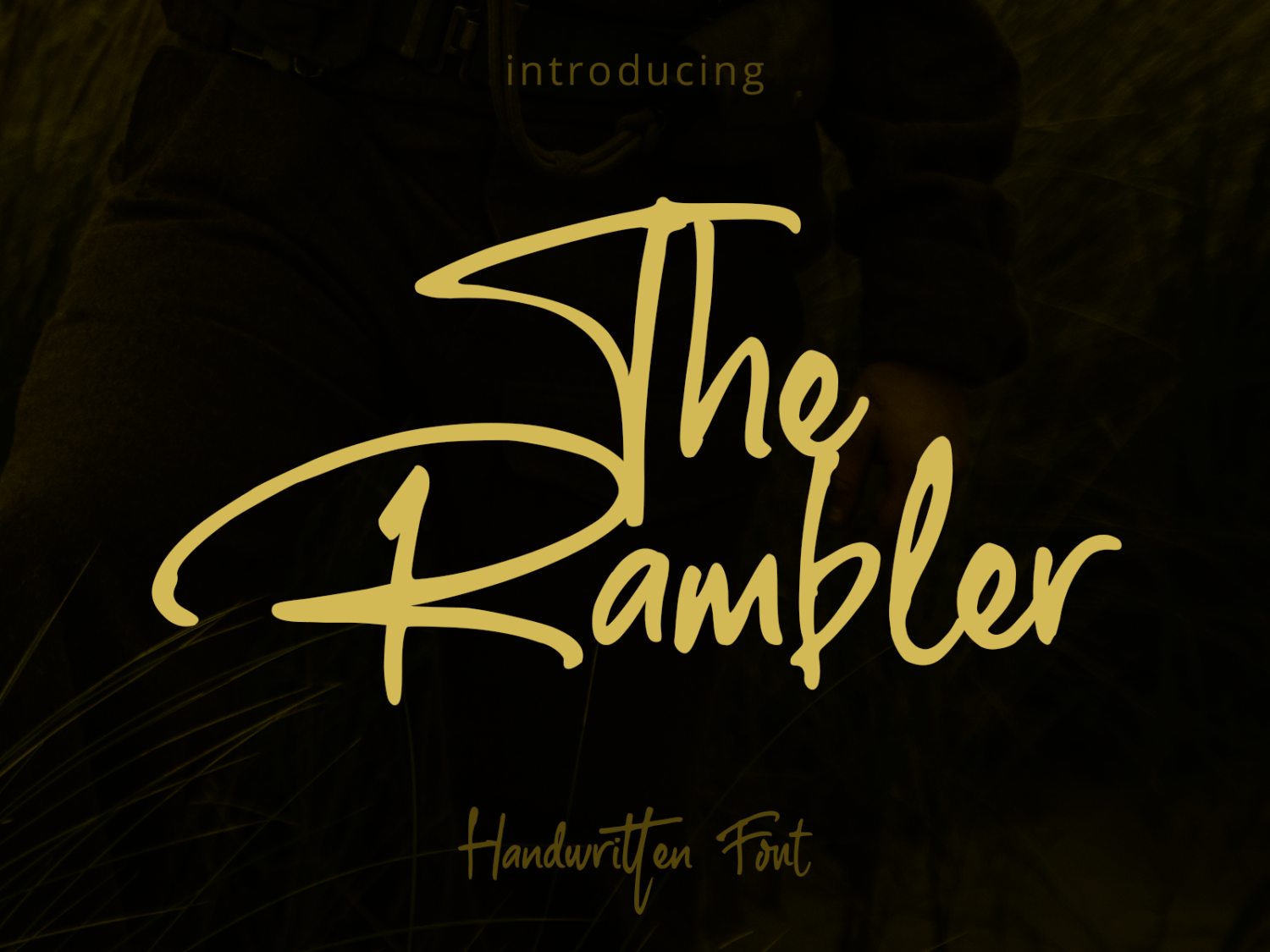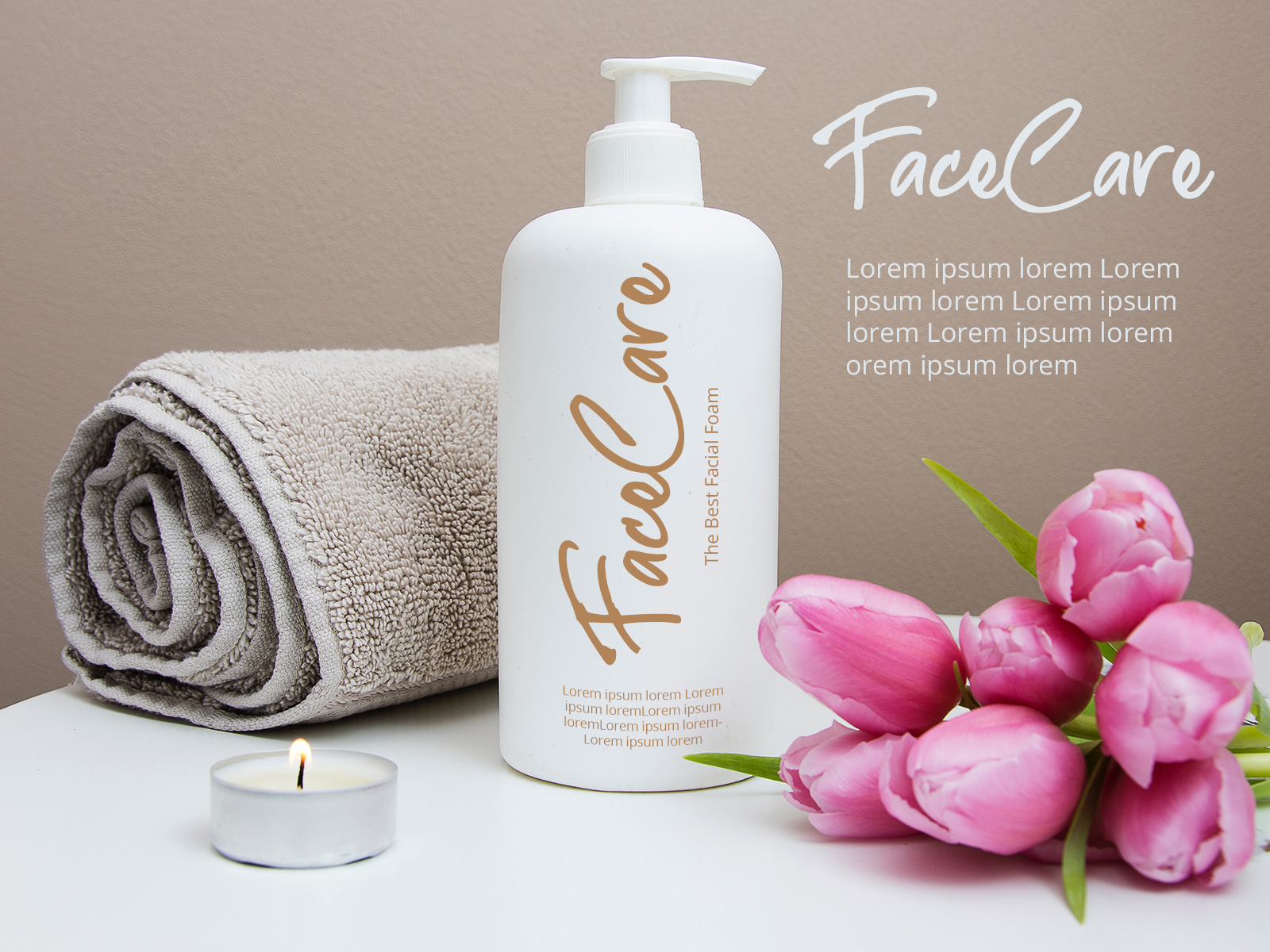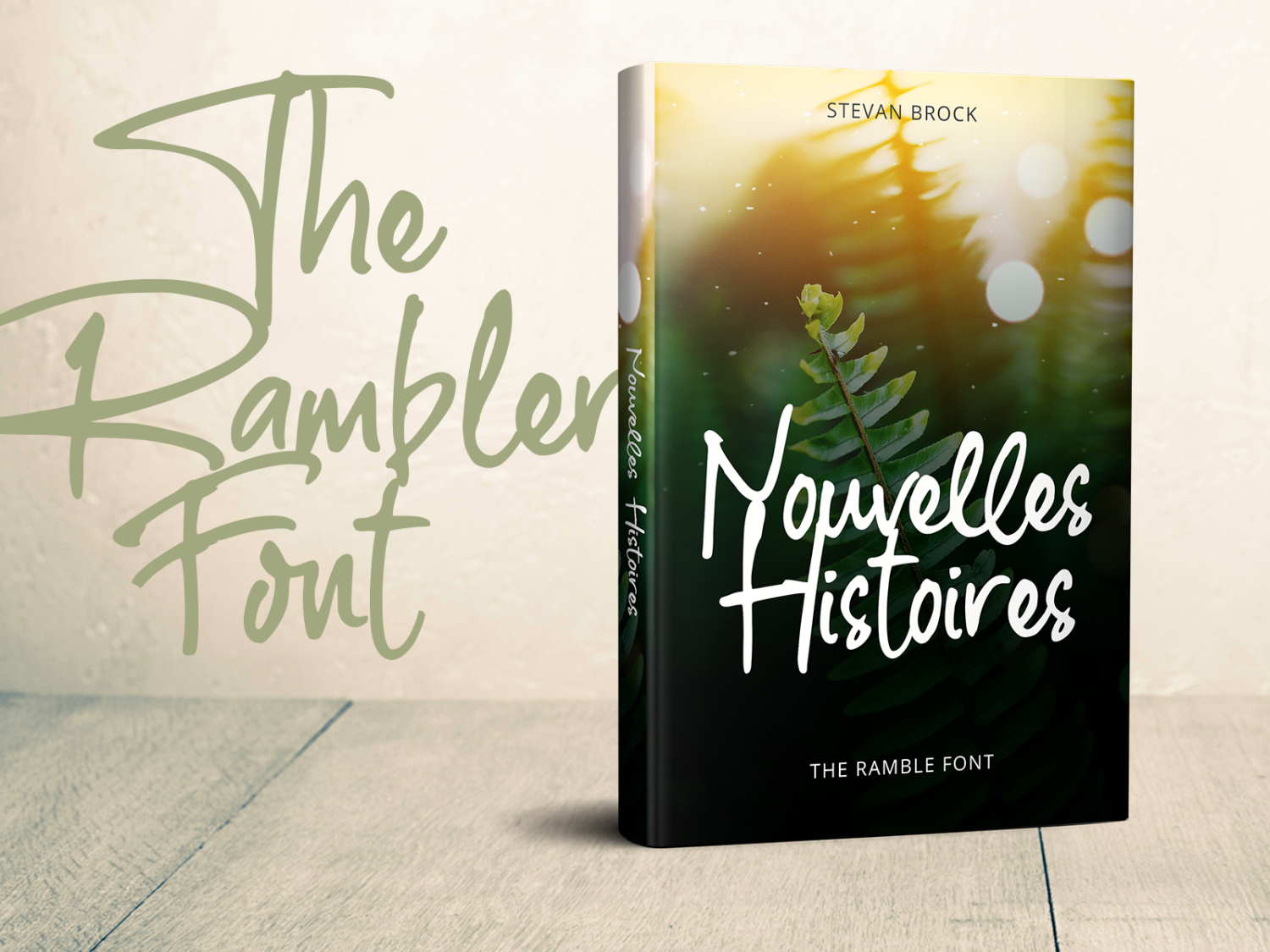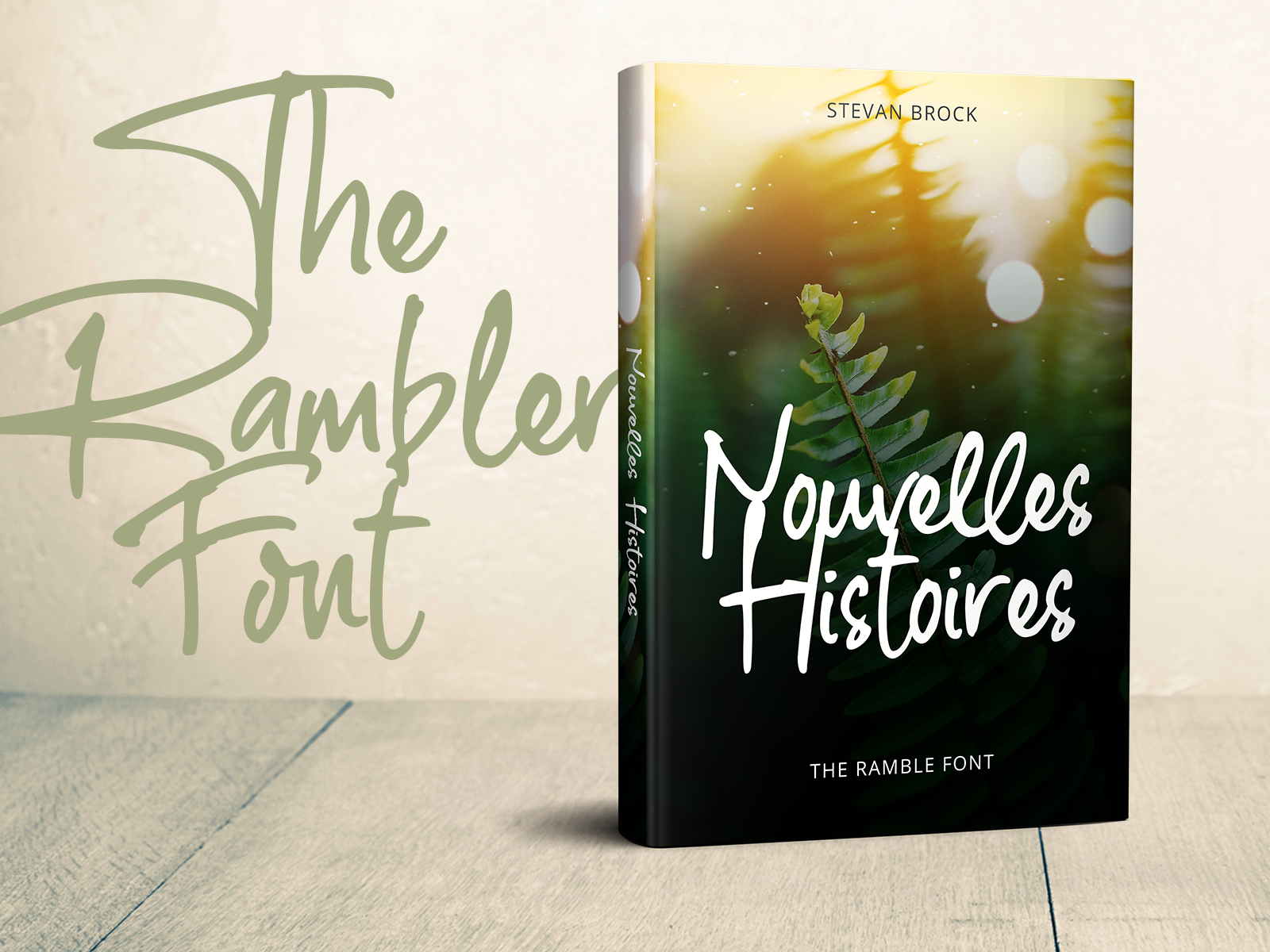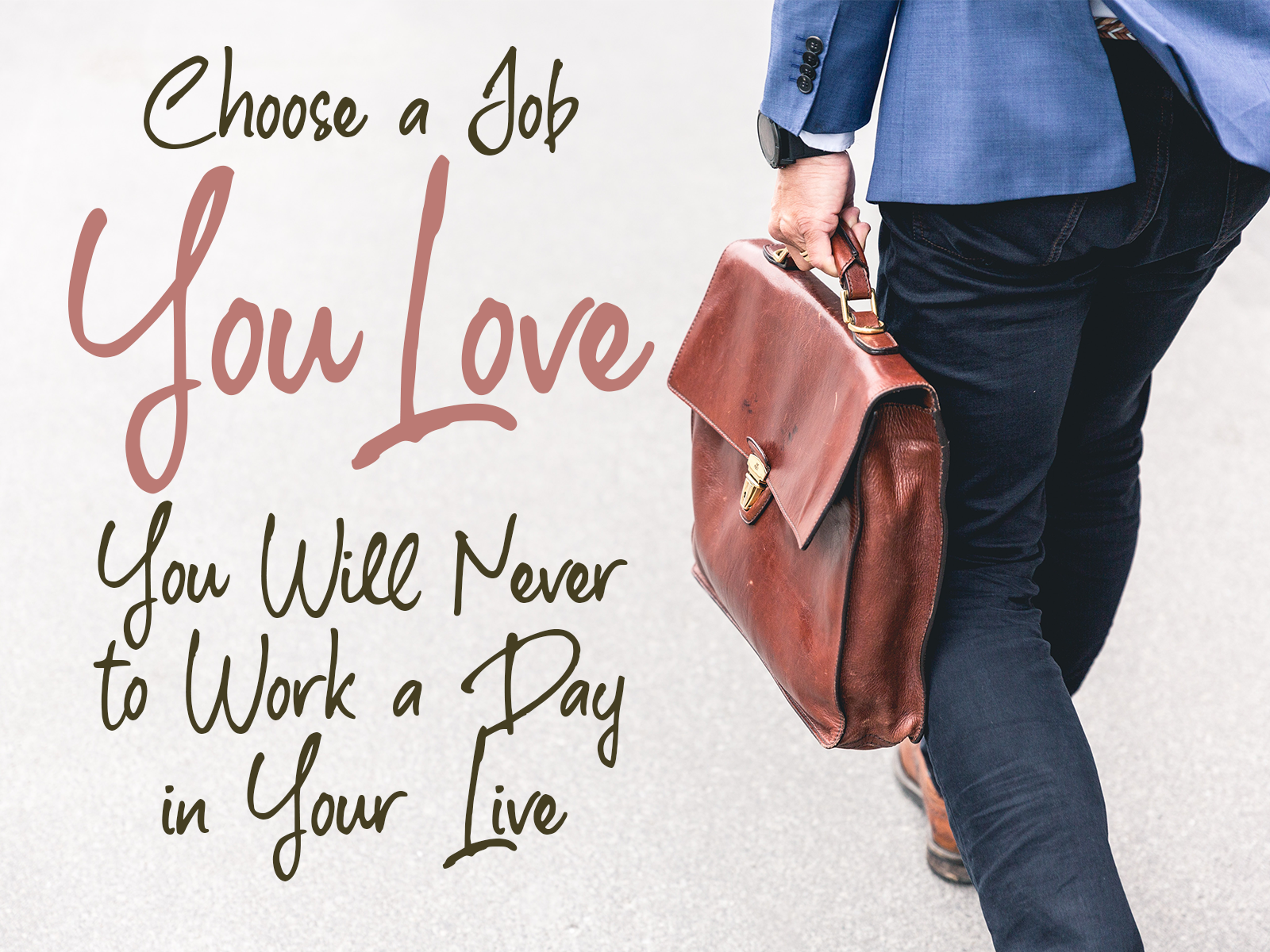
The Rumbler Free Font
The Rumbler Free Font is very suitable to make an adorable invitation for a wedding, birthday, special day, and also perfect for your other project branding. This free typeface was designed by a talented Kong Font. If you like it don’t forget to check out the full version.